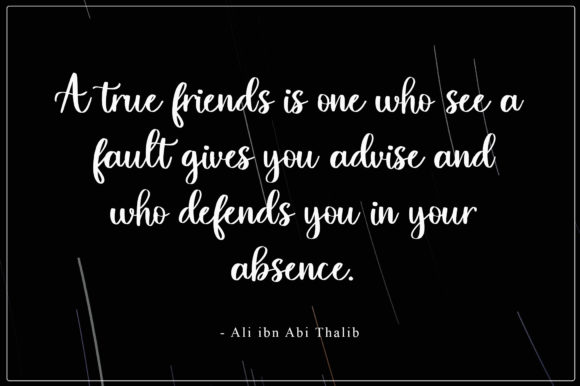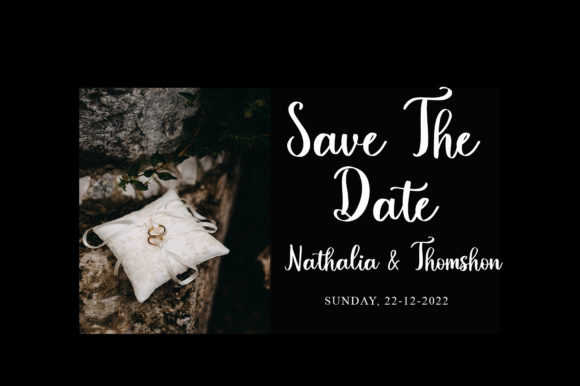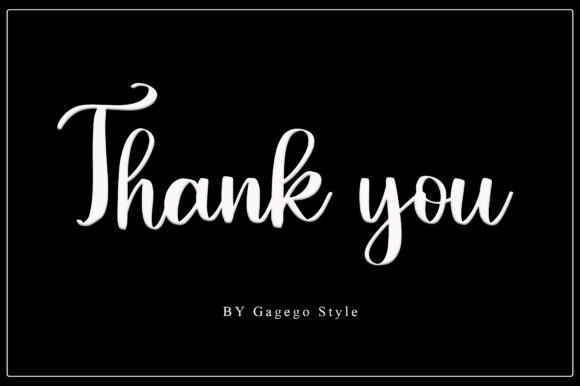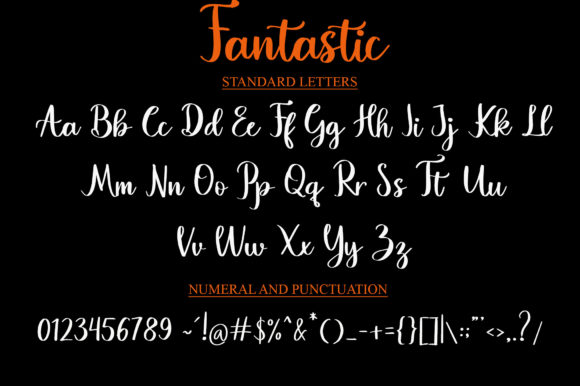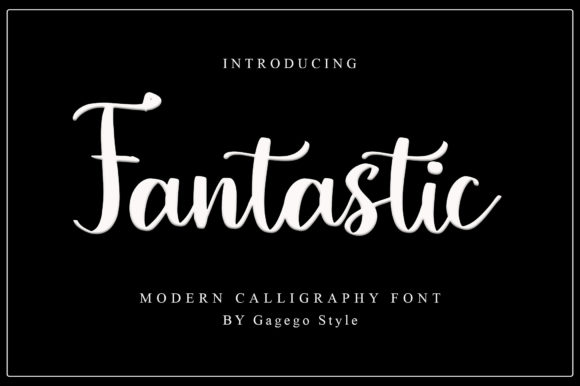
Fantastic Font: The Perfect Choice for Romantic and Elegant Designs
Are you looking for a font that exudes romance and sweetness? Look no further than Fantastic Font, a beautiful handwritten font that is sure to capture the hearts of designers and crafters alike. With its casual yet elegant style, Fantastic Font is perfect for a wide range of design projects, from logos and wedding invitations to headings, t-shirts, and more.
What Makes Fantastic Font So Special?
Fantastic Font is a unique and charming font that features characters that dance along the baseline, giving it a playful and whimsical feel. The font’s casual yet elegant style makes it perfect for designs that require a touch of sophistication and romance. Whether you’re creating a logo, wedding invitation, or social media graphic, Fantastic Font is sure to add a special touch to your design.
Uses for Fantastic Font
Fantastic Font is a versatile font that can be used for a wide range of design projects, including:
- Logos: Create a beautiful and memorable logo for your business or brand with Fantastic Font.
- Wedding Invitations: Add a touch of romance and elegance to your wedding invitations with Fantastic Font.
- Headings: Use Fantastic Font to create stunning headings for your website, blog, or social media graphics.
- T-Shirts: Create custom t-shirts with Fantastic Font that’s sure to turn heads.
- Letterhead: Add a touch of elegance to your letterhead with Fantastic Font.
- Signage: Use Fantastic Font to create eye-catching signage for your business or event.
- Labels: Create beautiful labels for your products or gifts with Fantastic Font.
- News: Use Fantastic Font to create engaging and readable news articles.
- Posters: Create stunning posters for your business or event with Fantastic Font.
- Badges: Design custom badges with Fantastic Font that’s sure to impress.
Why Designers and Crafters Love Fantastic Font
Designers and crafters love Fantastic Font for its unique and charming style. The font’s casual yet elegant feel makes it perfect for a wide range of design projects, from romantic wedding invitations to bold and eye-catching posters. With Fantastic Font, you can add a touch of sophistication and whimsy to your designs, making them stand out from the crowd.
Tips for Using Fantastic Font
Here are some tips for using Fantastic Font in your designs:
- Pair Fantastic Font with a simple sans-serif font for a beautiful contrast.
- Use Fantastic Font in combination with images or graphics for a stunning visual effect.
- Use Fantastic Font to create a focal point in your design, such as a heading or title.
Fantastic Font is a beautiful and versatile font that is perfect for designers and crafters looking to add a touch of romance and elegance to their designs. With its casual yet elegant style, Fantastic Font is suitable for a wide range of design projects, from logos and wedding invitations to headings, t-shirts, and more. Whether you’re a seasoned designer or a crafty DIY enthusiast, Fantastic Font is sure to become a favorite in your font collection.